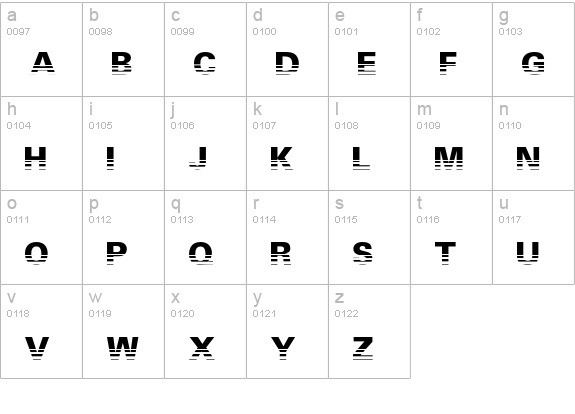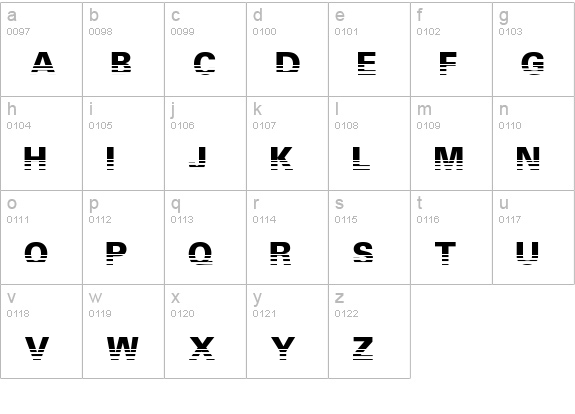
Ventilate Font Details
Ventilate font is a stunning and versatile typeface that exudes elegance and modernity. With its sleek lines and unique letterforms, Ventilate is perfect for adding a touch of sophistication to any design project. Whether you're creating a logo, designing a website, or crafting eye-catching advertisements, this font is sure to make a bold statement. What sets Ventilate font apart is not only its beautiful design but also the fact that it is freely available to download at FontsMarket.com. This means that you can enhance your creative endeavors without breaking the bank. The creators of Ventilate understand the importance of accessibility and have made this font accessible to everyone, ensuring that you can bring your ideas to life without any limitations. Ventilate font offers a wide range of weights, from light and airy to bold and impactful, allowing you to customize your typography to suit your specific needs. Its clean and legible characters make it ideal for both print and digital applications, ensuring that your message is effectively communicated to your audience. Whether you're a seasoned designer or just starting out, Ventilate font is a must-have in your collection. Its versatility, elegance, and the fact that it's freely available to download make it a valuable asset for any creative project. So why wait? Head over to FontsMarket.com and grab your copy of Ventilate font today and let your creativity flow freely.